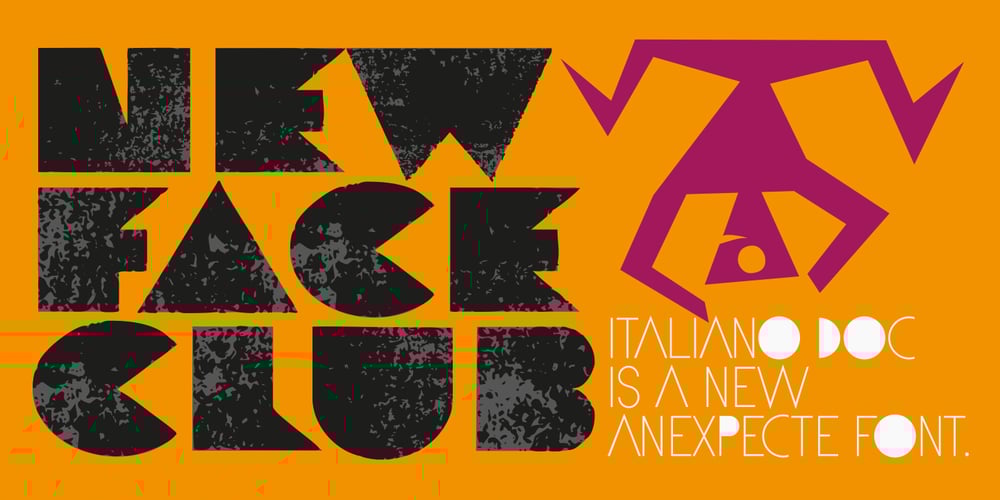
Italiano Doc
Italiano Doc font
Italiano Doc Font Family was designed by Antonio Vignali and published by RM&WD. Italiano Doc contains 8 styles and family package options. ITALIANO DOC is a fontface inspired by the Italians Futurismo artists in the early of the 1900’s. The font is completed with a Grunge Wall version, great Extra Icons and lighted futurist weigth. All the glyphs contained in the font, including OpenType variants that may only be accessible via OpenType-aware applications.